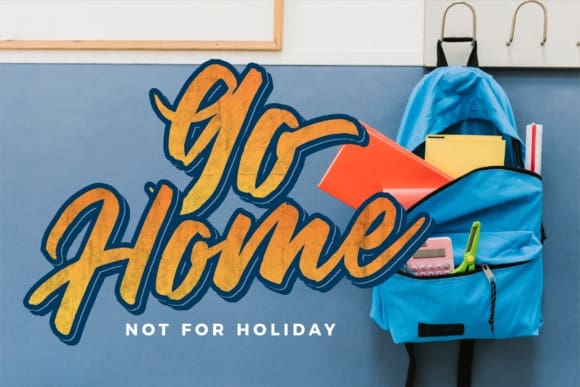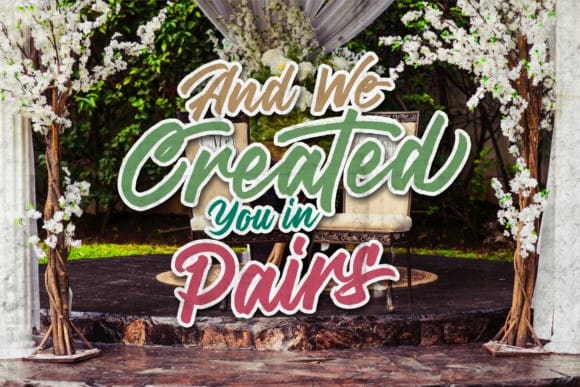
Qandaru Script Font
Qandaru Script Font is a gorgeous and bold handwritten font, crafted to give your headlines and logotype projects a stylish touch. This font reads as strong, confident, and dynamic and can add tons of nostalgic character to your designs. Qandaru is PUA encoded which means you can access all of the glyphs and swashes with ease!